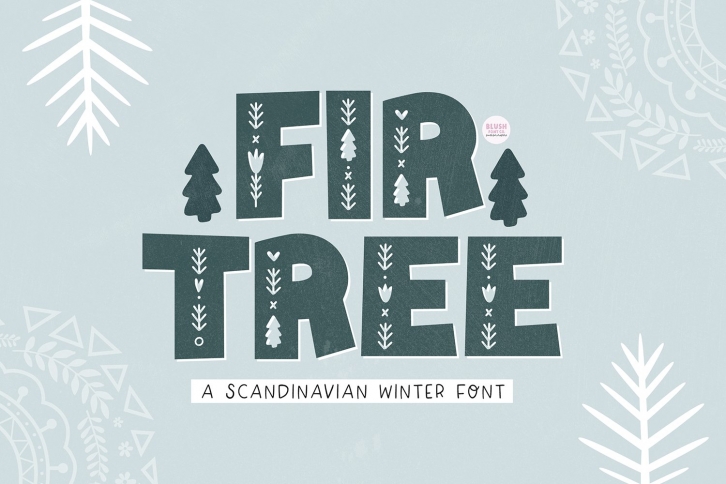
"Fir Tree"" Winter Scandinavian Display Font
Fir Tree is perfect for your holiday projects. Use it for Christmas cards, winter crafts for decor and more! This font includes upper and lowercase glyphs, numbers, basic punctuation, and intl characters (including Polish).